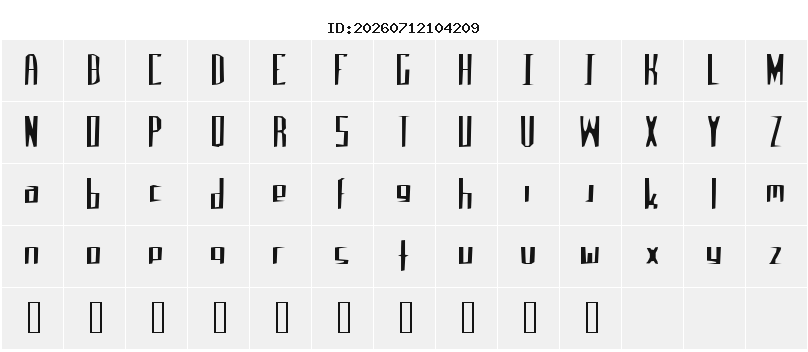
About Mandible Mama.ttf
Mandible Mama.ttf is a modern, elegant sans-serif font designed for ultimate readability and visual harmony. Perfect for branding, headlines, web design, and print materials.